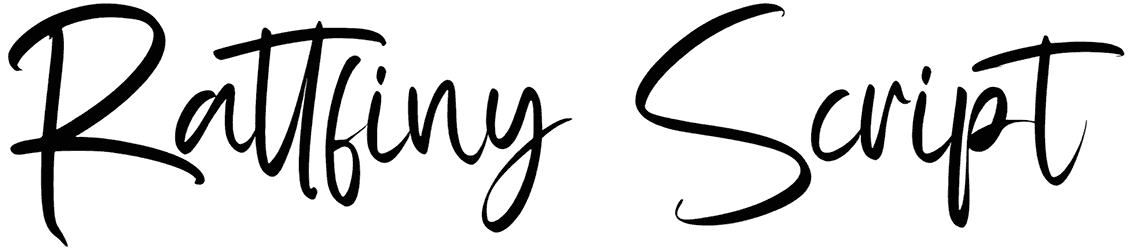
Rattfiny Script Font
Rattfiny Script is a modern handwritten font featuring a signature style with an impressive personal touch. This font supports the whole set of characters, but it might not be readable enough. You can use it for creating business cards, photo overlays, website headlines, party invitations, branding purposes, and other designs that need a natural script look.